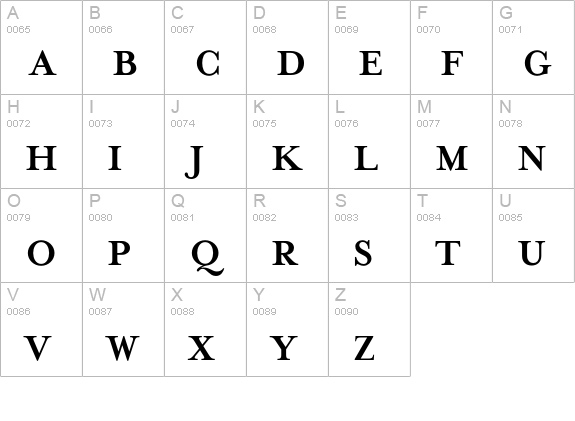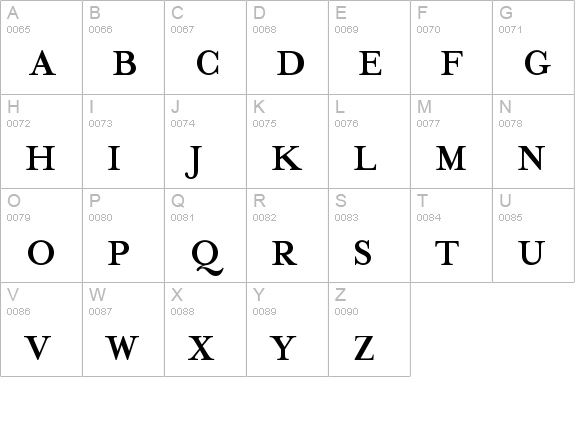
MrsEavesBold Font Details
MrsEavesBold is a timeless and elegant serif font that exudes sophistication and grace. Its bold weight commands attention while maintaining a sense of classic refinement. The clean lines and delicate serifs of this typeface make it perfect for adding a touch of elegance to any design project. What makes MrsEavesBold even more appealing is that it is freely available to download at FontsMarket.com. This means that you can easily access this stunning font and use it to elevate your designs without any hassle. Whether you're working on a wedding invitation, a branding project, or any other creative endeavor, MrsEavesBold is sure to add a touch of sophistication and style. Download it now and let your designs shine with this beautiful typeface.